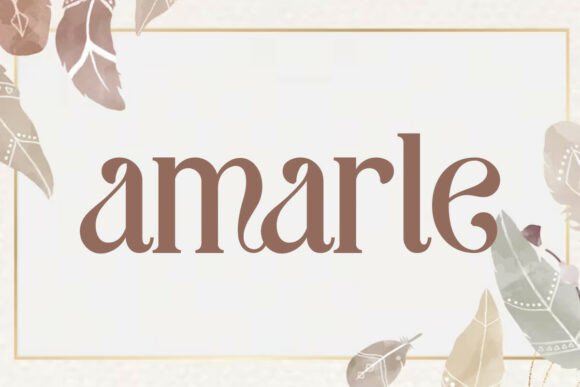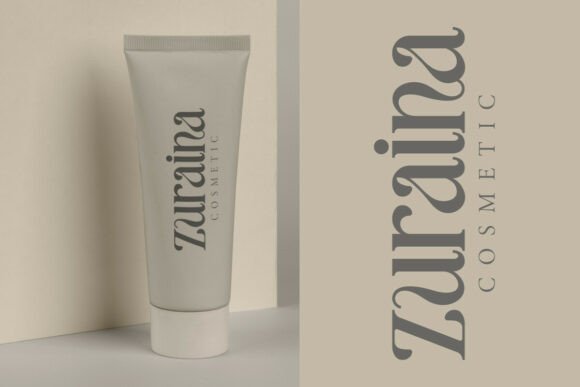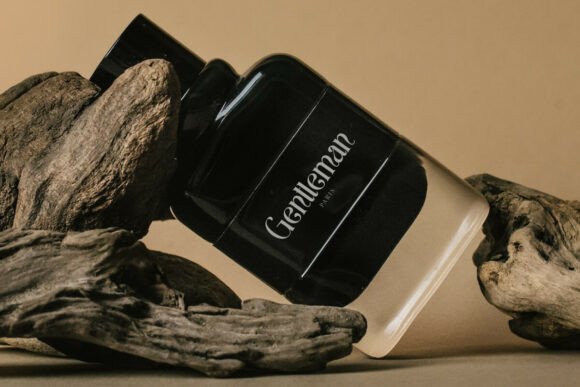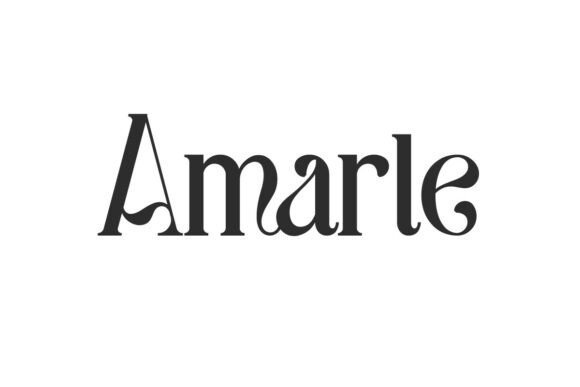
Introduction to Amarle Font
Amarle is a bold, classic serif font that blends timeless elegance with a modern artistic touch.
Its distinctive charm comes from the gracefully curved lines on each character, giving the typeface a unique and stylish look This versatile font family is ideal for various creative projects, from branding and magazine layouts to product packaging and wedding invitations.
Key Features of Amarle Font
Why Choose Amarle Font?